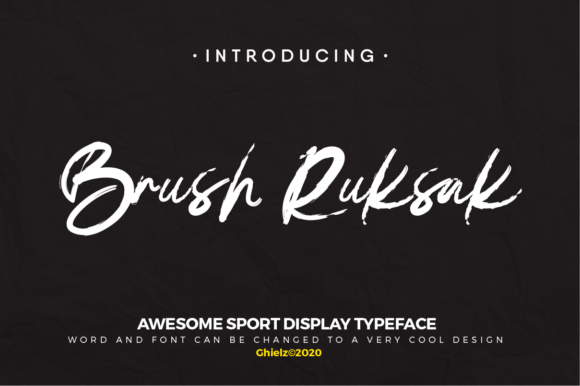
Unleash Your Creativity with the Perfect Brush Ruksak Font
Have you ever stared at a blank page, trying to bring a creative idea to life, but struggling to find the right words? That’s when the magic happens, and you stumble upon the perfect font to elevate your project. For designers, finding that perfect font can be the difference between a good design and a great one.
Enter the Brush Ruksak Font, a sweet and flowing handwritten font that’s sure to capture your heart. With its varying baseline, rough lines, gorgeous glyphs, and stunning alternates, this font is a game-changer. Whether you’re designing a wedding invitation, a logo, or a social media post, the Brush Ruksak Font is the perfect addition to take your projects to the next level.
Brush Ruksak Font Key Features
- Font Family: Brush Ruksak is a handwritten font that offers a unique, brush-like aesthetic.
- Unique Characteristics: Features a distinctive, hand-painted look with subtle texture and imperfections, giving it a personal touch.
- Font Style: Offers a single font style with various weights and ligatures, allowing for flexibility in design applications.
Brush Ruksak Font Review
I’ve had the chance to play around with the Brush Ruksak Font, and here’s my honest take on it.
- The Brush Ruksak Font is super versatile. It’s suitable for a wide range of design projects, from branding and advertising to editorial and digital media.
- The font’s organic feel makes it perfect for adding a touch of hand-drawn charm to your designs.
- The font’s weight range is generous, offering a good balance between light and bold variations.
- The Brush Ruksak Font is highly legible, even at smaller font sizes, making it a great choice for body text.
- The font’s aesthetic may not be for everyone, as it’s quite unconventional. Some designers might find it too whimsical or unrefined.
- The font’s performance on smaller screens or at low resolutions can be a bit rough around the edges.
- The Brush Ruksak Font lacks a clear, modern sans-serif feel, which might make it less suitable for projects requiring a more contemporary look.
Overall, the Brush Ruksak Font is a solid choice for designers looking to add some personality to their work. While it may not be perfect, its unique charm and versatility make it a great addition to any design arsenal.
The Brush Ruksak Font is ideal for:
- Designing watercolor-inspired artwork.
- Creating rustic or vintage-style designs.
- Adding a unique touch to invitations and event materials.
Brush Ruksak Font is a unique, hand-drawn sans-serif font, ideal for creative projects that require a personal touch. However, there are other alternatives that offer similar characteristics and can be used in various design contexts.
Great Vibes Font is a modern, script font that mimics the feel of hand-drawn letters. It’s perfect for creating eye-catching headings, quotes, and titles. Great Vibes Font has a similar relaxed, casual feel to Brush Ruksak Font, but with a more fluid and organic texture.
Pacifico Font is a beautiful, elegant script font that’s ideal for creating luxurious and sophisticated designs. While it has a more refined and polished look compared to Brush Ruksak Font, Pacifico Font shares a similar sense of hand-crafted uniqueness.
Dancing Script Font is a lively, cursive font that’s perfect for creating energetic and playful designs. Like Brush Ruksak Font, Dancing Script Font has a dynamic and expressive feel, but with a more fluid and flowing motion.
Lobster Font is a fun, cursive font that’s ideal for creating casual and informal designs. While it has a more playful and whimsical feel compared to Brush Ruksak Font, Lobster Font shares a similar sense of hand-drawn charm and personality.
Q: Is the Brush Ruksak Font available in multiple weights and styles?
Yes, the Brush Ruksak Font is available in a range of weights and styles, including light, regular, bold, and italic. This allows you to customize the font to suit your design needs and create a consistent visual identity across your project.